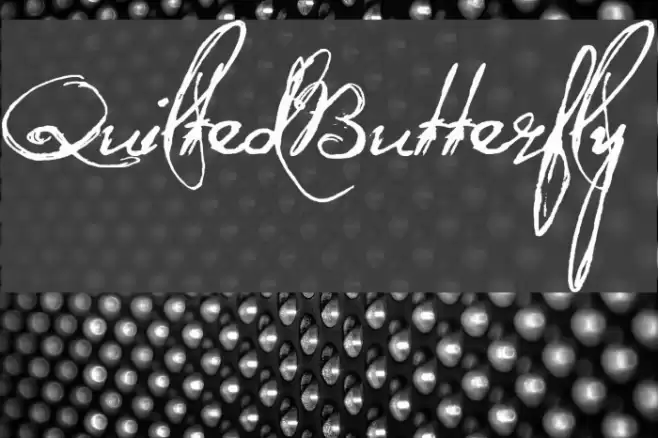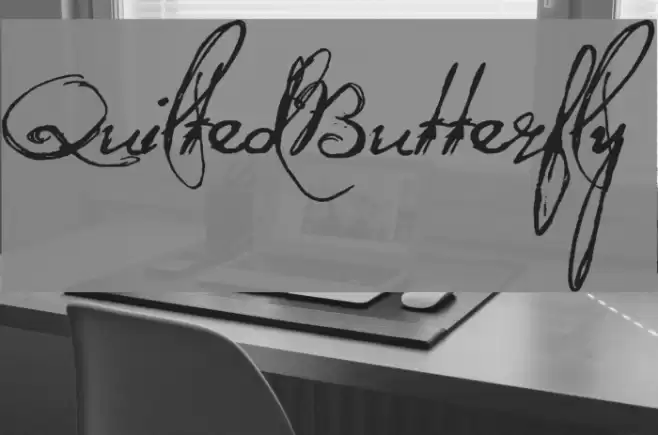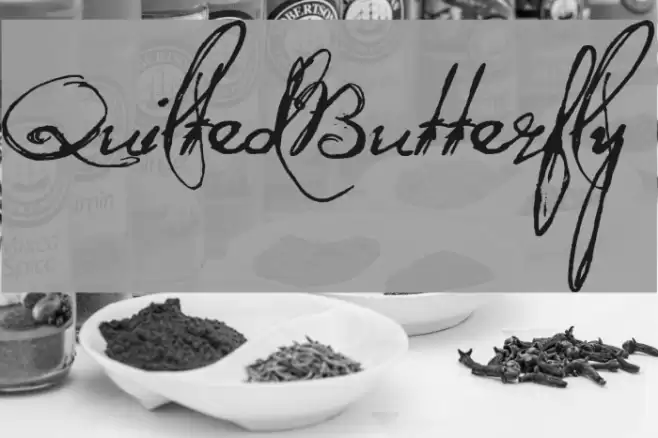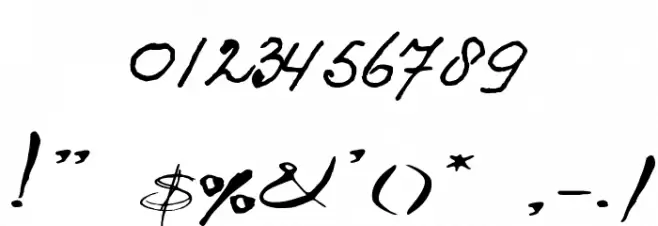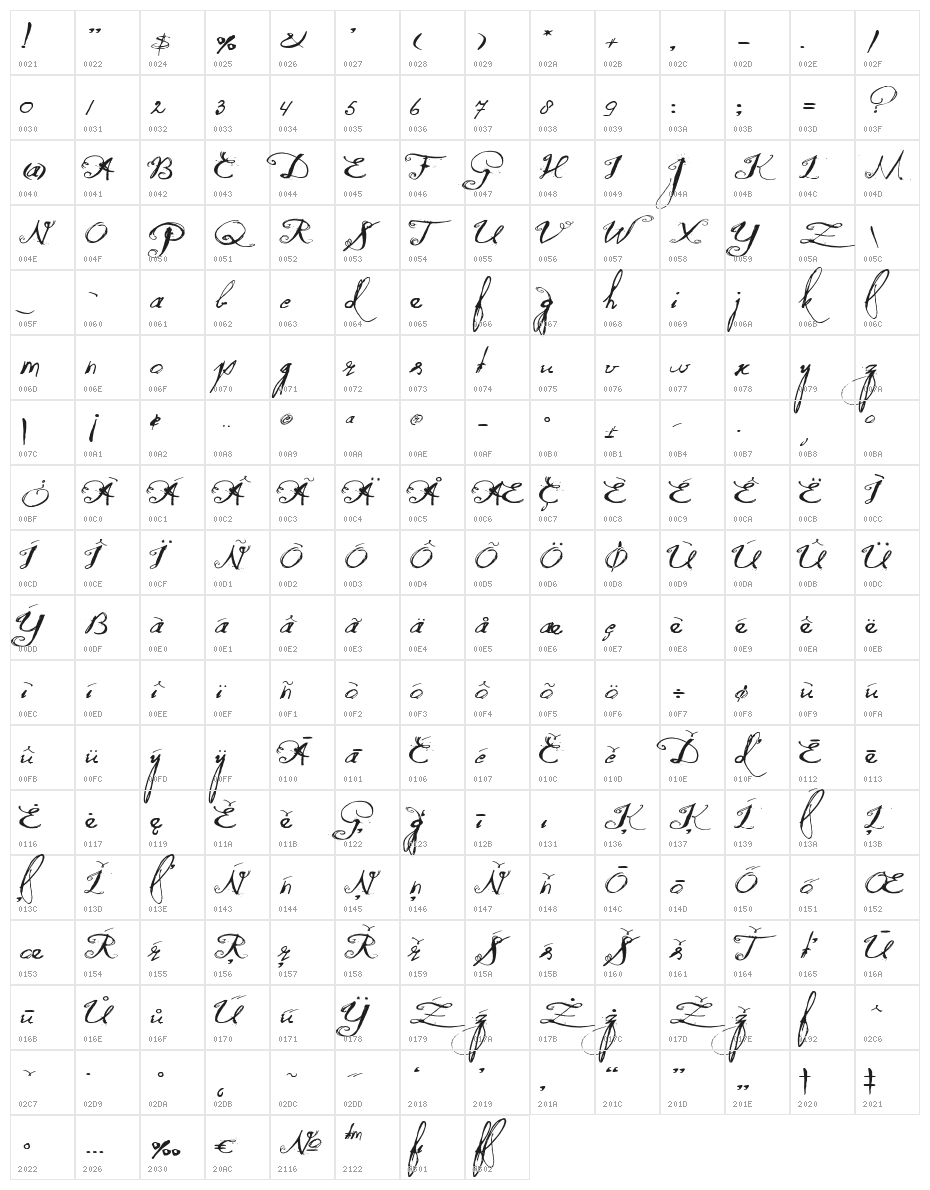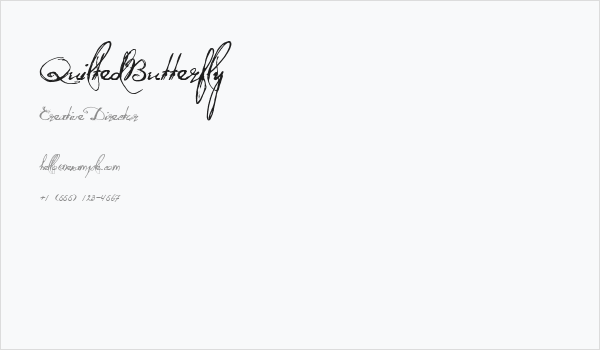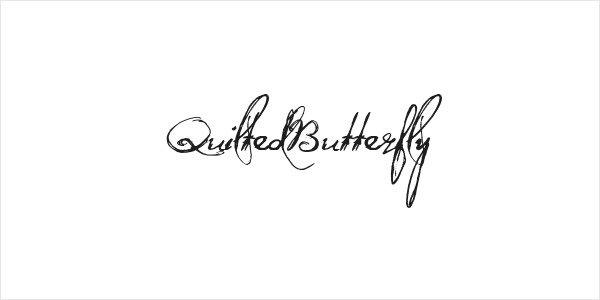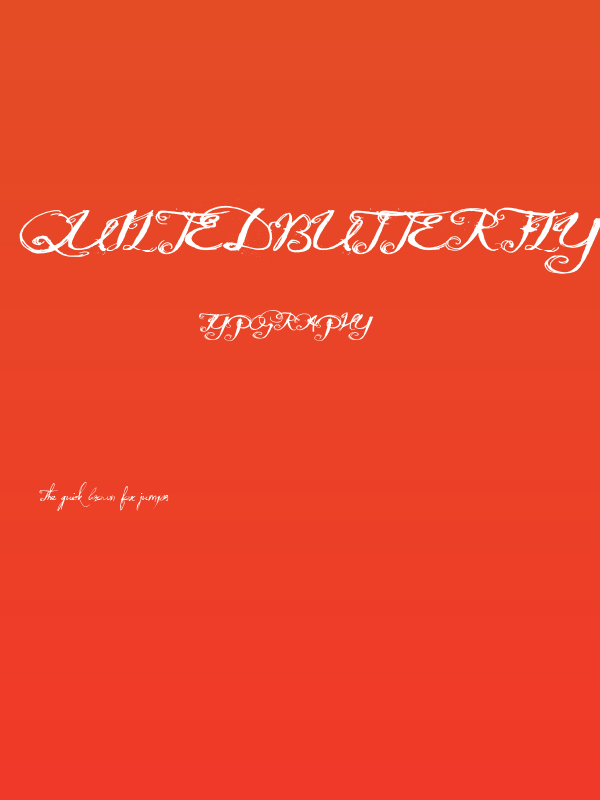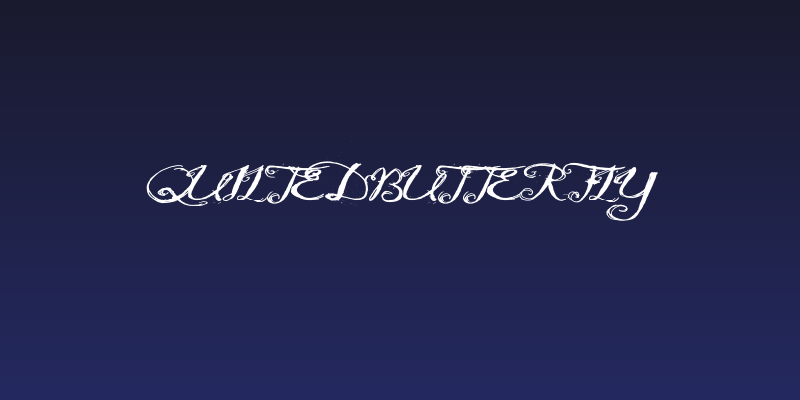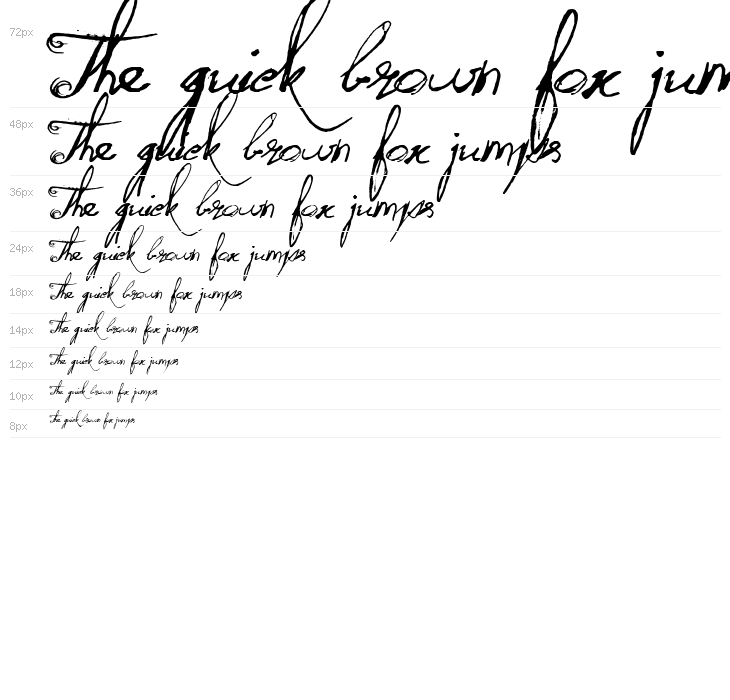
QuiltedButterfly Font
QuiltedButterfly Description
This font exhibits a highly decorative and artistic style, characterized by intricate swirls and flourishes that extend from the main strokes of each letter. The uppercase letters are particularly elaborate, with embellishments that give them a whimsical and ornate appearance. The lowercase letters maintain a similar level of decoration, though slightly more restrained, allowing for readability while still showcasing the font's unique flair. The numbers and special characters follow suit, with consistent embellishments that unify the overall aesthetic. The font's design suggests a hand-drawn quality, evoking a sense of elegance and creativity. Its intricate details make it suitable for projects that require a touch of sophistication and artistic expression.
An ornate and decorative font with intricate swirls and flourishes from Uncategorized fonts.
- Proposed Projects: Ideal for wedding invitations, artistic posters, branding for luxury products, and decorative book covers.
- Use Case: Logos, Invitations, Artistic Projects